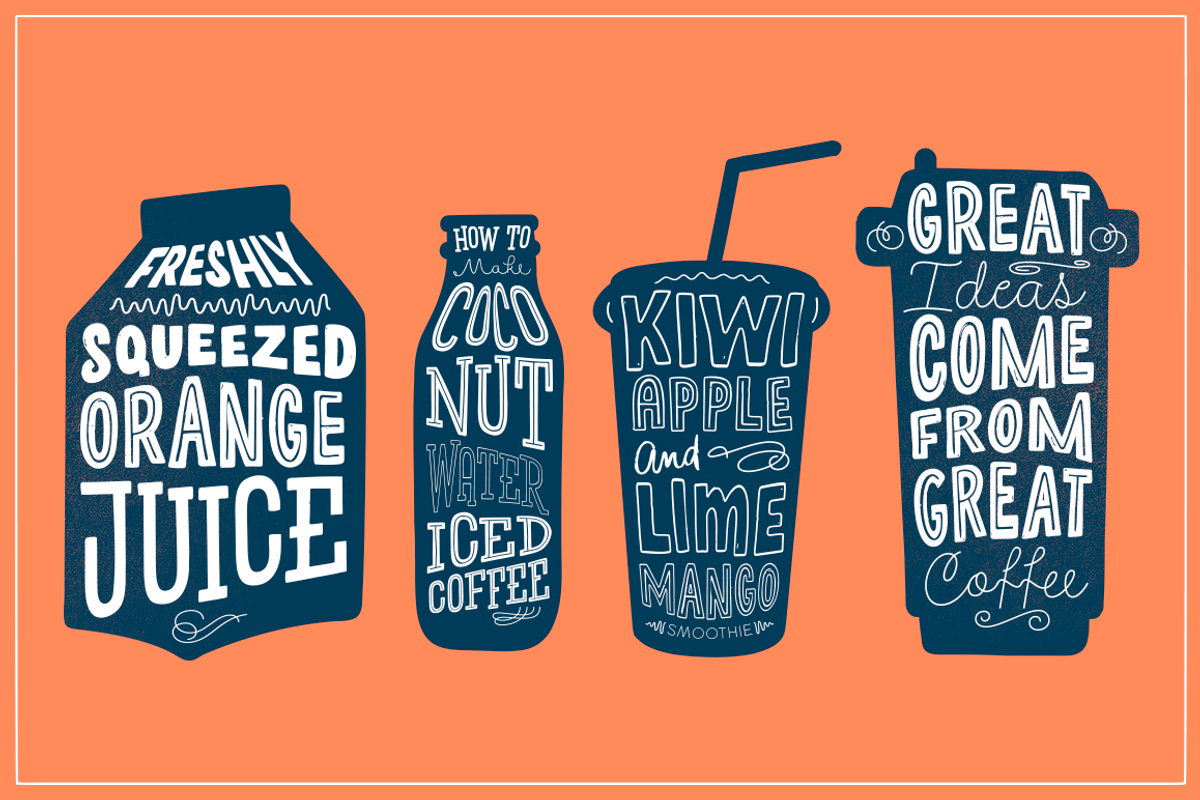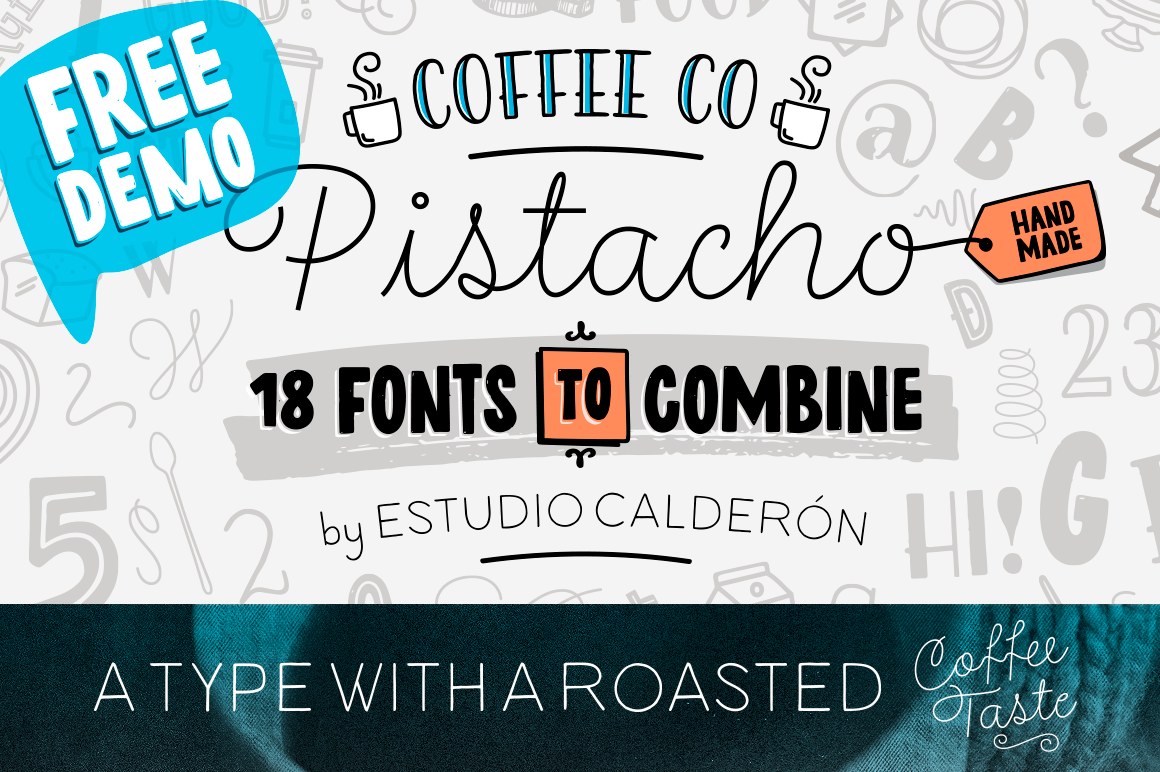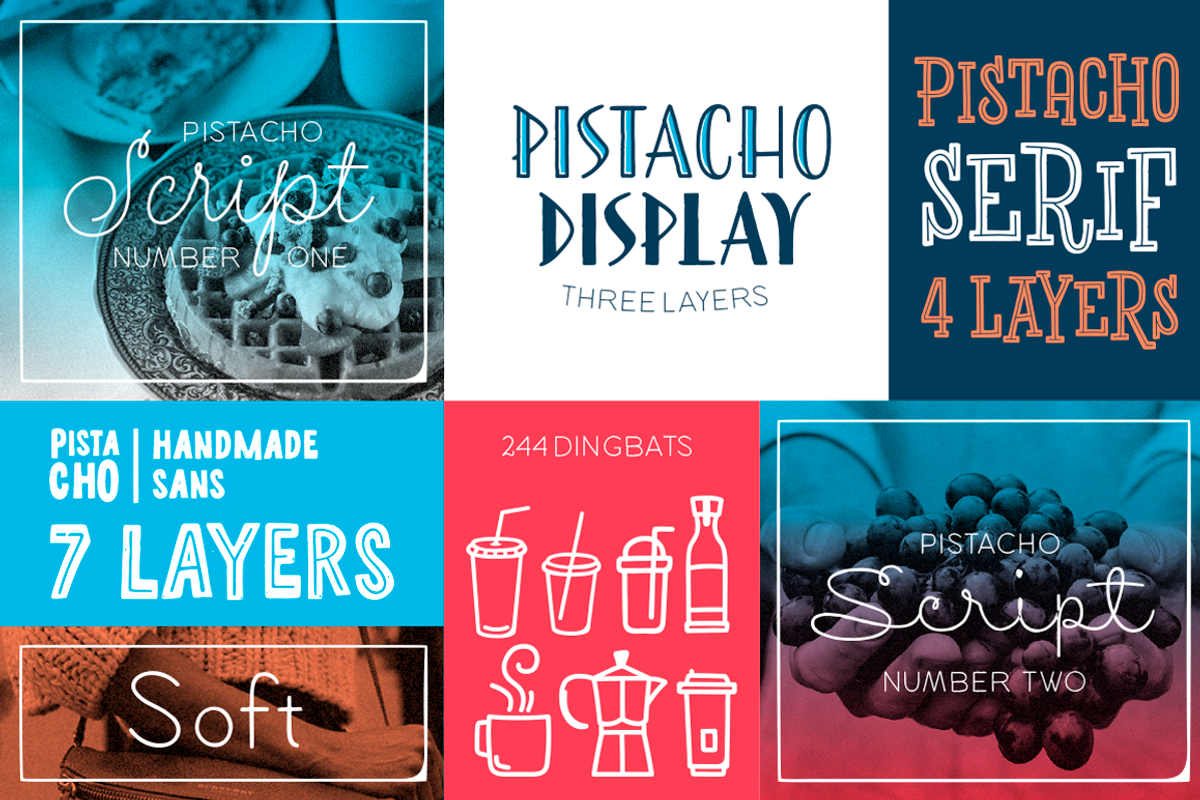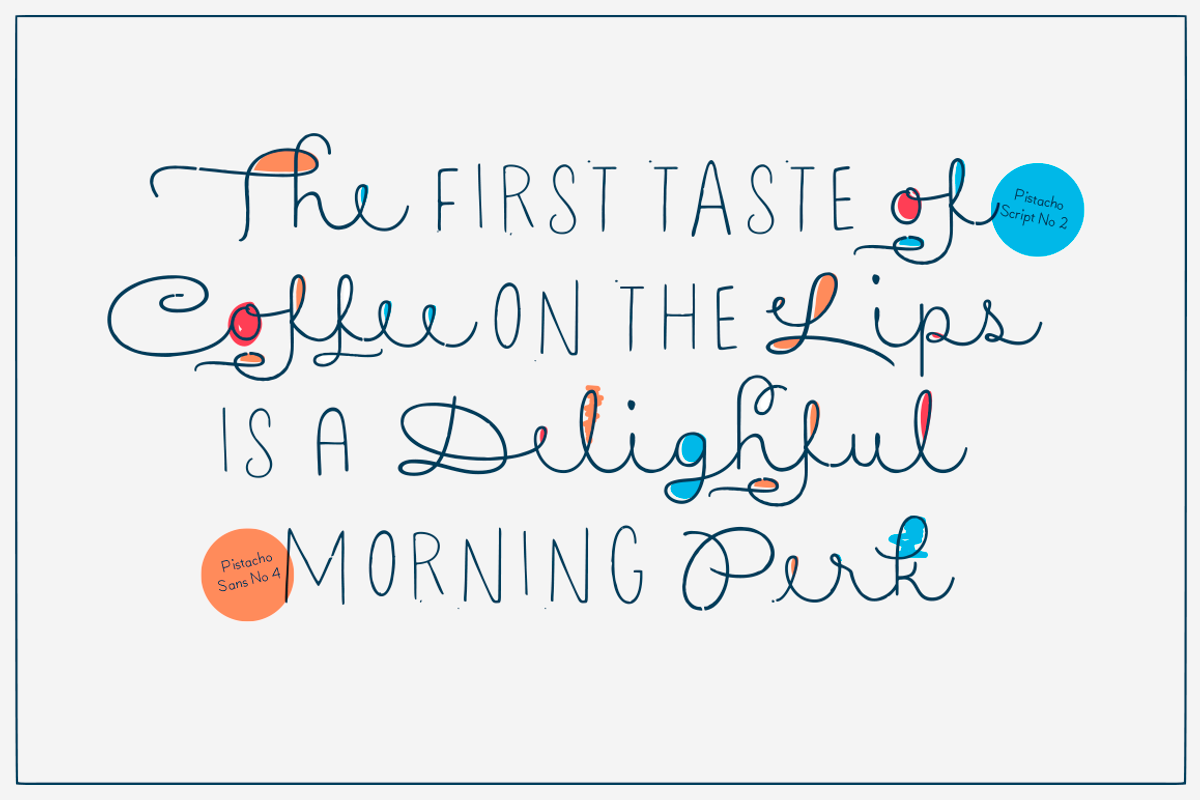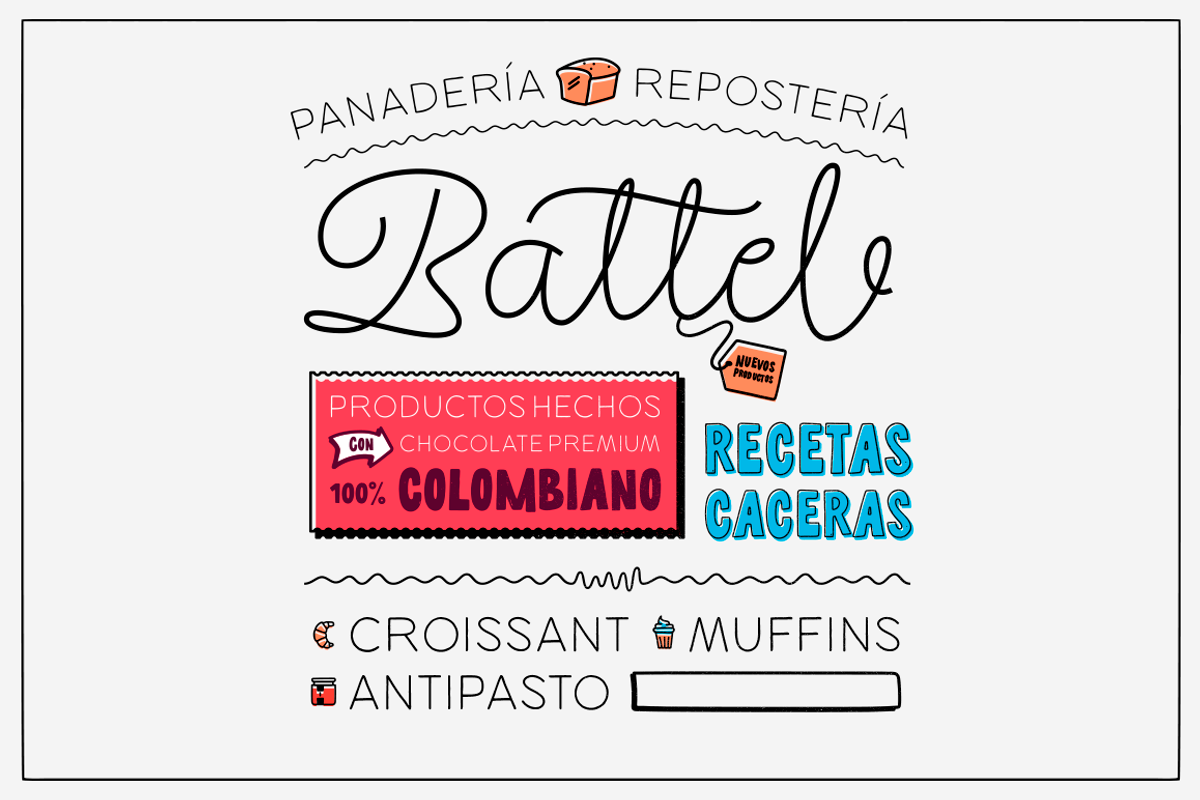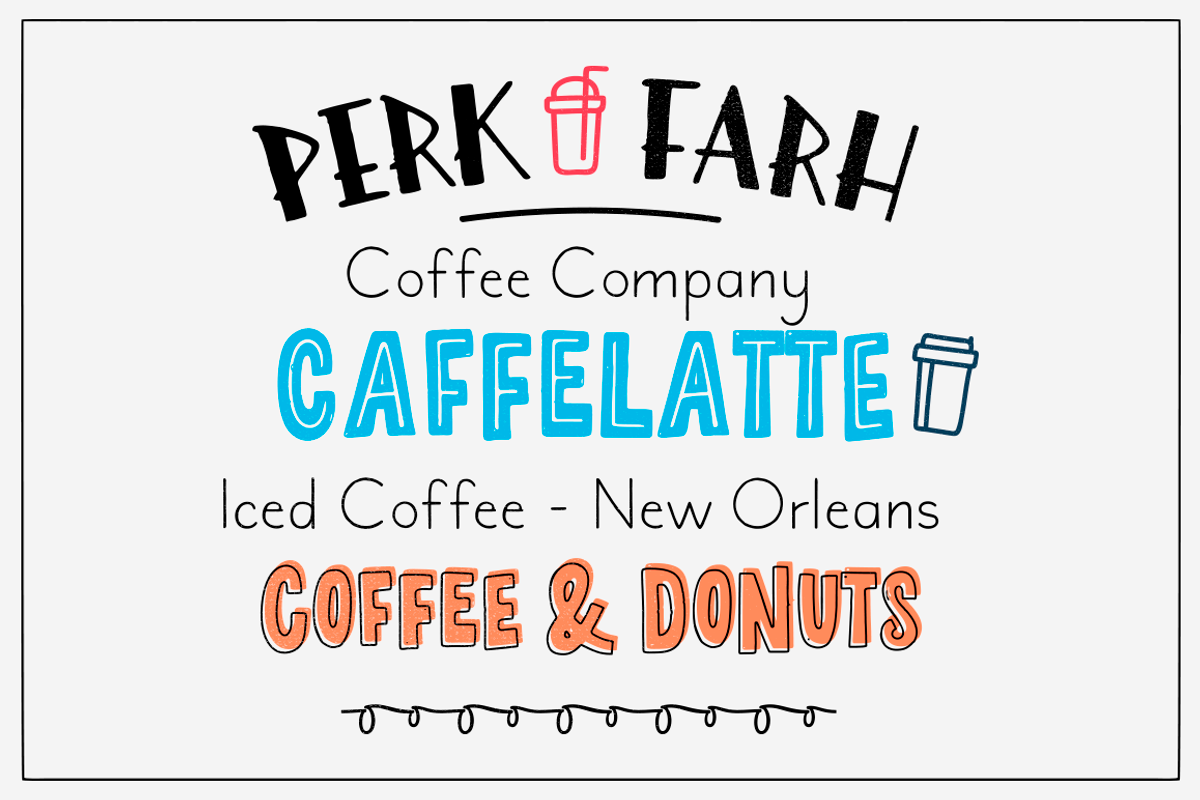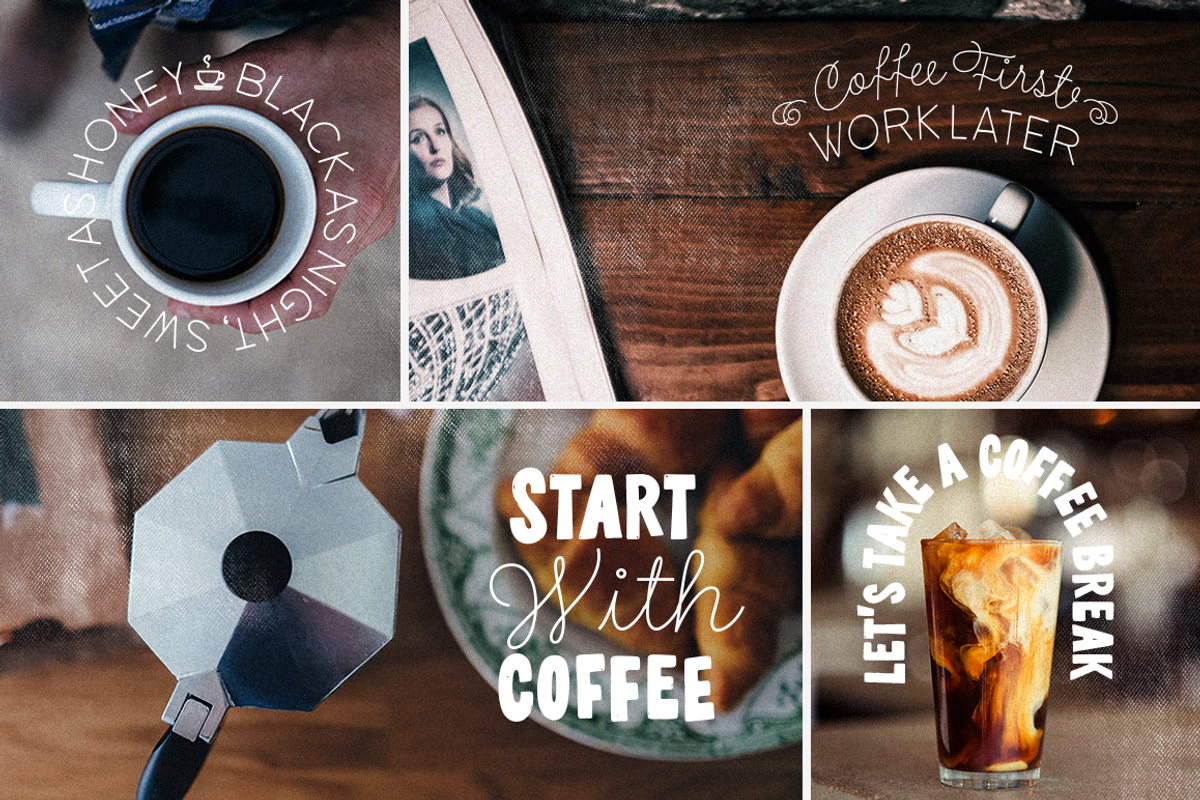
Pistacho Typefamily
Are you looking for an appropriate typeface for coffee shops concept?
We want to introduce Pistacho, the new type family of Estudio Calderon that contains 18 fonts to design great illustrations and to be applied, especially, in coffee shops, bakeries, ice-cream shops, candy stores, pastry shops, fruit shops and all those places where food is the center. Pistacho was designed by hand using pencils and markers that let us get a handcrafted and rough texture.
Below, a brief description of each style:
Display: A fresh and modern type, perfect to be used in coffee shops outdoor signs. The logotype of “Central Perk”, the coffee shop of the tv show “Friends” was our inspiration to develop this beautiful font that contains 317 characters and three variables: Display 1, Display 2 and Display 3, each one has specific characteristics that will be an excellent resource for your designs.
Sans: Style that contains 7 fonts that can be mixed to get interesting finishes in your designs, each variable has 363 characters with standard ligatures and stylistic alternatives. You can find this styles as: Sans 1, Sans 2, Sans 3, Sans 4, Sans 5, Sans 6 and Sans 7.
Script: Script 1 and Script 2, two monolineal fonts with a generous spacing that provides contrast and movement, being a suitable complement for the rest of the types of Pistacho family.
Serif: Font with a lot of style and personality, inspired in the interlock alphabets shown in «Photo-Lettering´s One Line Manual of Style». Serif 1, Serif 2, Serif 3 and Serif 4 contain a great number of ligatures that generate nice compositions by combining them. One of the characteristics of this style is the combination of upper case and lower case giving as a result a different touch in each design.
Soft: Humanist type with a rustic texture and geometric forms ideal for long texts and small sizes.
Dingbats: We have designed a package of 244 graphics, illustrations and ornaments that are the perfect complement to combine with each font of this family.